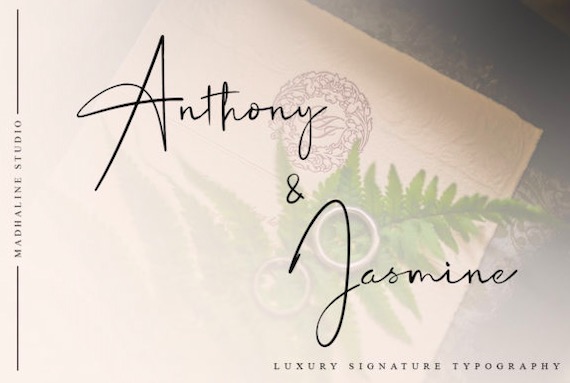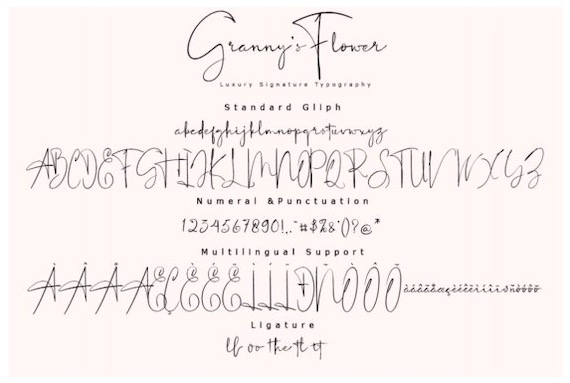
Granny’s Flower Font is a modern light handwritten script typeface that was created and shared by MadhalineStudio. And it would be perfect for many different design purposes like photography, watermark, social media posts, advertisements, logos & branding, invitation, product designs, label, stationery, wedding designs, product packaging, special events, or anything that need handwriting taste.
- Ton of glyphs (include Uppercase, Lowercase, Numerals & Punctuations, Ligature)
Granny’s Flower Handwritten Font